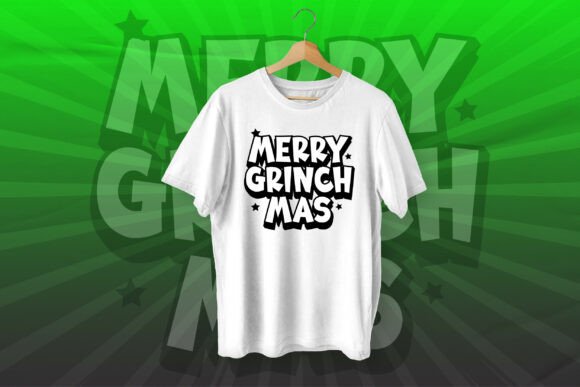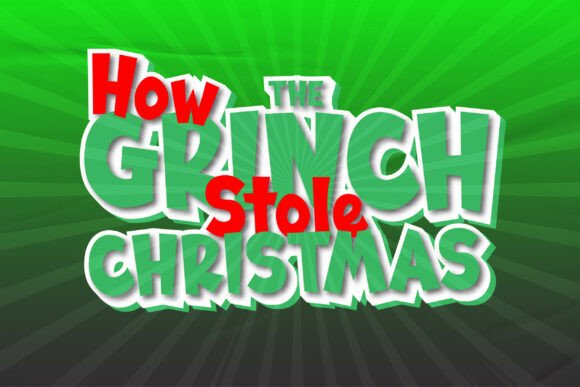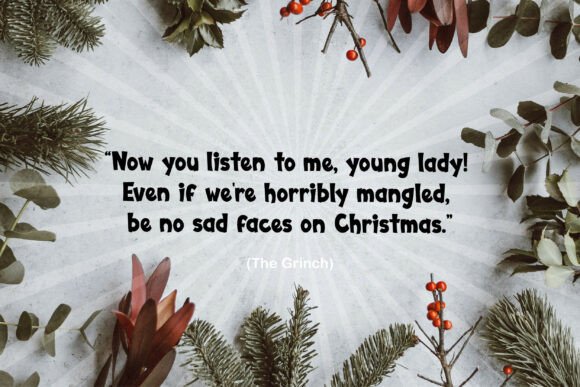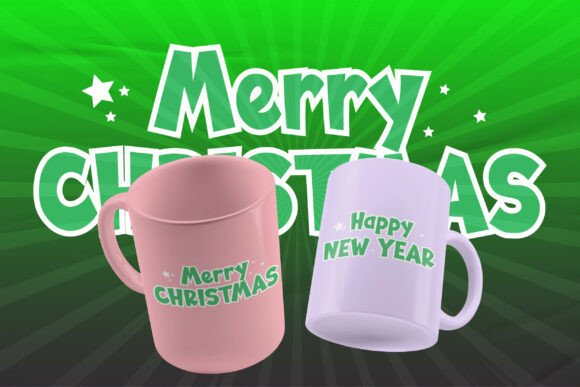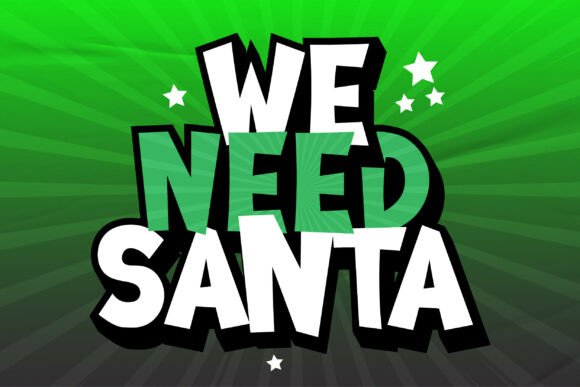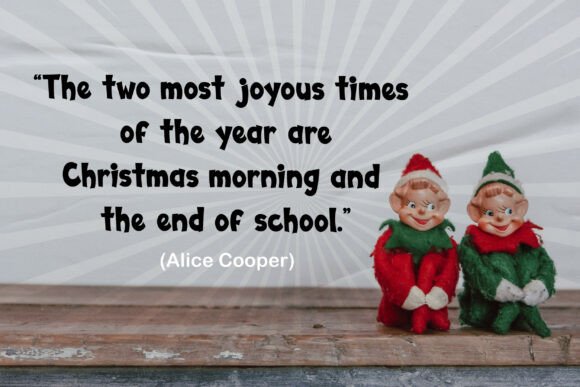
Unlock the Magic of the Holiday Season with Grinch Land Font
It’s that time of the year when creativity flows like hot cocoa on a chilly winter evening. You’re browsing through your design software, searching for the perfect font to give your project that extra oomph. And then, it hits you – the perfect blend of whimsy and charm that makes your heart skip a beat.
Meet the Grinch Land Font, a Christmas-inspired font that embodies the essence of joy and authenticity. This delightful font is designed to add a touch of magic to all your favorite projects, from blog posts and logos to invitations and photo albums. For designers, the Grinch Land Font is a valuable addition to their toolkit, offering a unique way to express their creativity and connect with their audience on a deeper level.
Grinch Land Font Key Features
- Font Family: Grinch Land Font is a custom-designed font family consisting of various weights and styles.
- Character Set: Includes a wide range of characters, including uppercase and lowercase letters, numbers, punctuation marks, and special characters.
- Unique Characteristics: Features a distinctive, whimsical design inspired by the Grinch character, making it perfect for holiday-themed designs, children’s books, and other creative projects.
- Weight and Style Options: Includes multiple weights (e.g., light, regular, bold) and styles (e.g., italic, bold italic) to cater to various design needs.
Grinch Land Font Review
At first glance, I thought Grinch Land Font was going to be a real Grinch – a disappointing, unimpressive font. But, after using it for a few projects, I found some hidden gems. ✨ The font’s unique, playful feel really shines when used for titles, headings, and other attention-grabbing elements. The rounded edges and bold lines give it a fun, whimsical vibe that’s perfect for kids’ books, nursery decor, or any project that needs a dash of holiday cheer.
However, there are some limitations to consider. ⚠️ For one, the font’s bold weights can be a bit overwhelming, especially when used for large blocks of text. Additionally, the font’s quirky feel might not be to everyone’s taste. I’ve seen it work beautifully in some contexts, but in others, it can come across as childish or immature.
- Unique, playful feel perfect for titles and headings
- Rounded edges and bold lines add a whimsical touch
- Works well for kids’ books, nursery decor, and holiday-themed projects
- Bold weights can be overwhelming in large blocks of text
- May not be to everyone’s taste
Overall, I’d say Grinch Land Font is a solid choice for projects that need a playful, whimsical feel. Just be mindful of its limitations, and use it judiciously to avoid overwhelming your audience.
The “Grinch Land Font” is ideal for designs that require a playful, whimsical touch. Use it for:
- Christmas and holiday-themed designs.
- Illustrations and graphics for children’s books and comics.